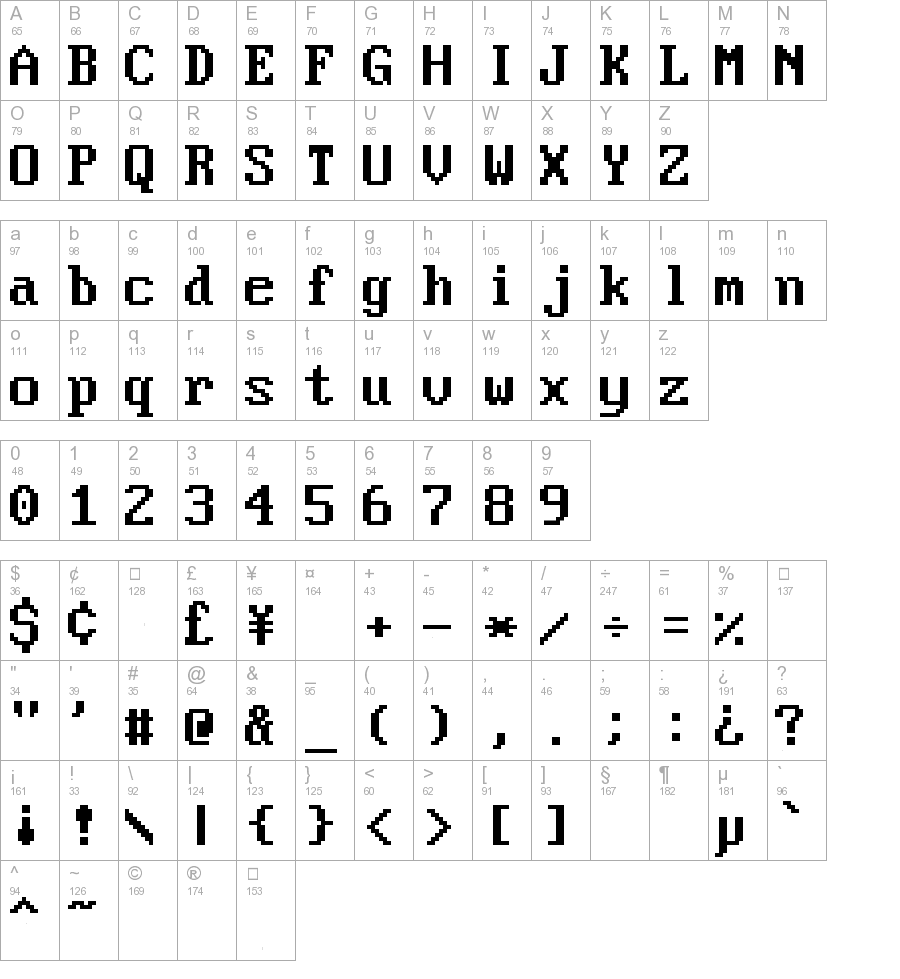
Incredible Dos Fonts Ideas. Webfonts opentype features about camingo dos office font family camingodos office is suited for use in office environments. Dos true type fonts :
It seems that years ago standard dos display fonts were hardwired into graphics cards. Get to know each font style in the modern ms dos family and. Lil johnny à € by.